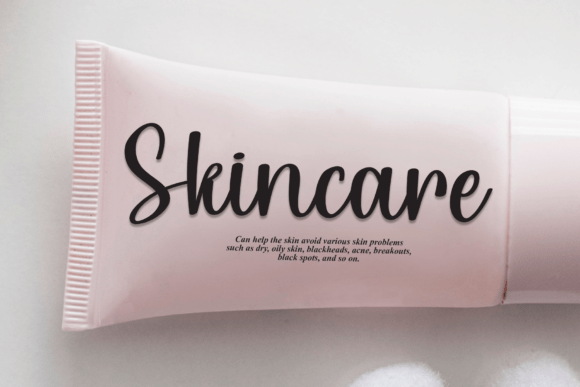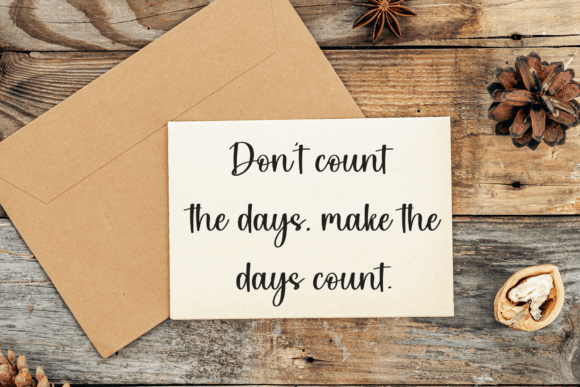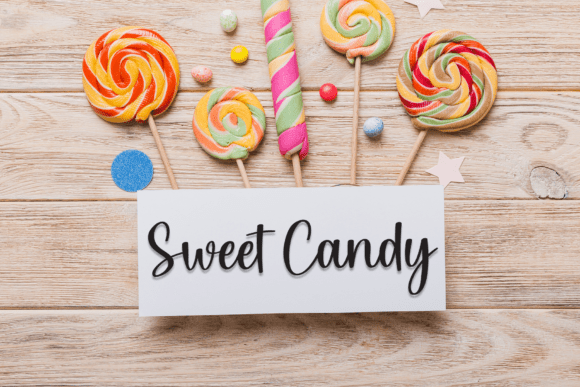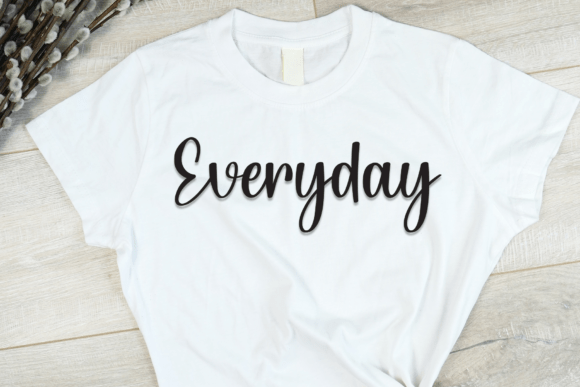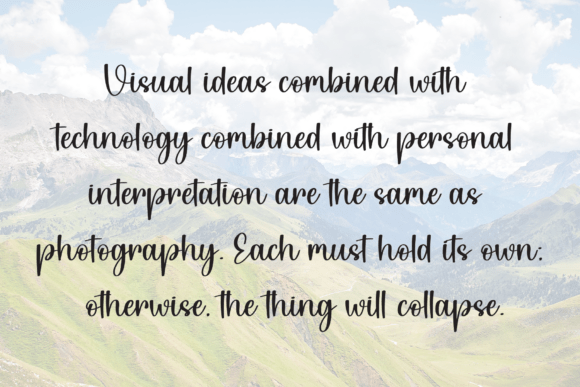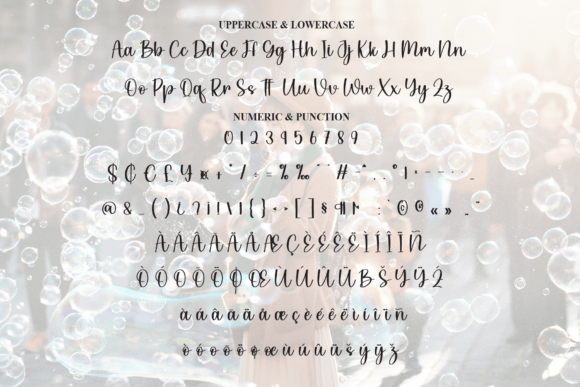
Introduction to Momentic Font Font
Fonts play a crucial role in design, and the Momentic Font font is a typeface that brings both character and versatility to any project. Whether you’re working on a branding project, a website, or a print design, the Momentic Font font offers a unique style that can elevate your work.
Elegant and expressive, this script font flows with effortless beauty.
Featuring graceful curves and smooth connections, itβs ideal for adding a sophisticated, handwritten feel to wedding invitations, logos, branding projects, and social media graphics Whether you’re designing something romantic or refined, this script font brings a timeless charm to any design.
Key Features of Momentic Font Font
Why Choose Momentic Font Font?
The Momentic Font font is more than just a typeface β it’s a design tool that helps you communicate your message with style and clarity. Its unique character set and versatile design make it suitable for a wide range of applications, from elegant invitations to bold headlines.
With its carefully crafted letterforms and balanced proportions, the Momentic Font font ensures readability and visual appeal across all mediums.
What makes Momentic Font font special?
The Momentic Font font stands out with its unique design, exceptional readability, and versatility across various design applications.